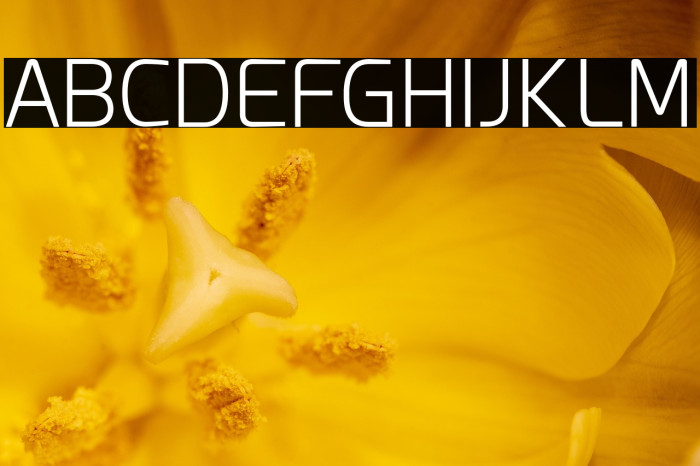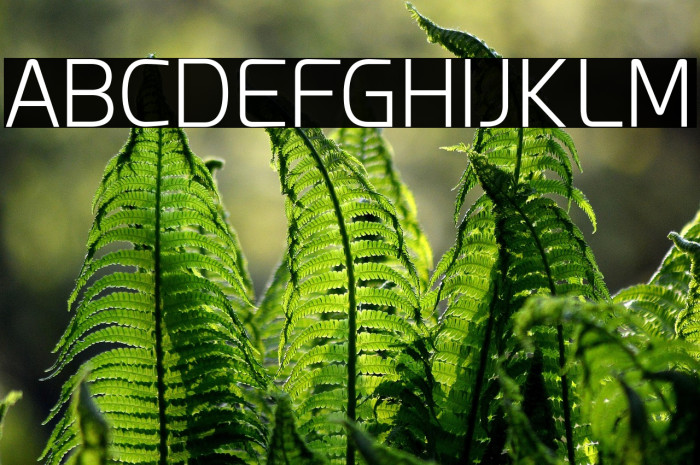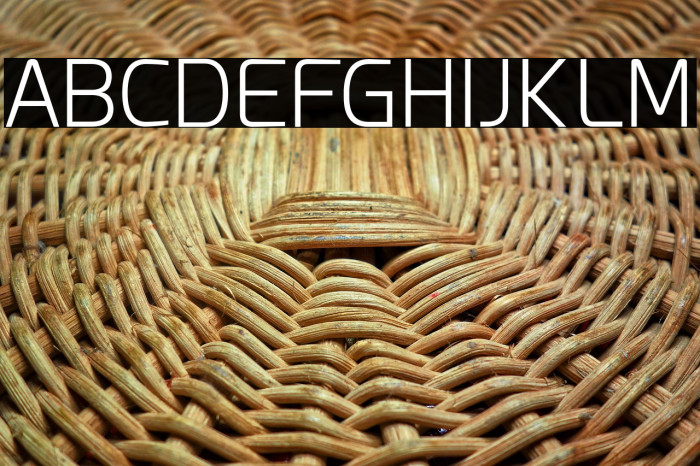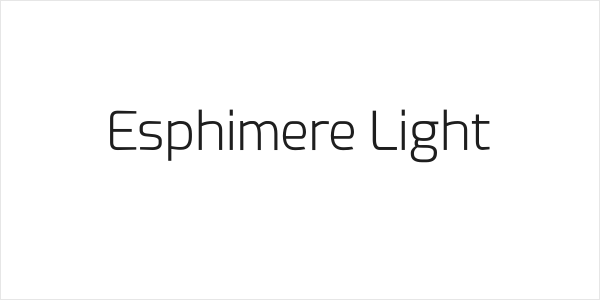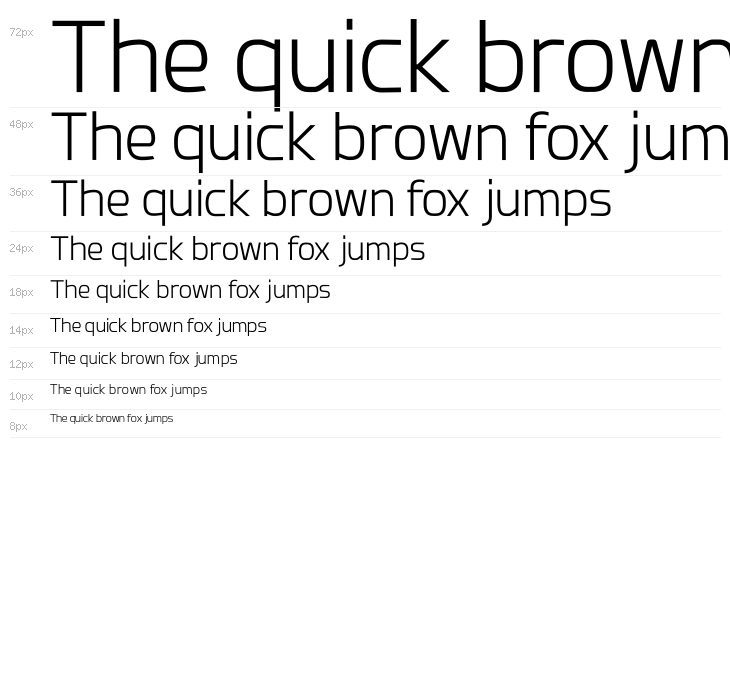
Esphimere Light Font
Esphimere Light Description
This font features a clean and modern sans-serif design with a light weight, making it ideal for contemporary projects. The characters are well-proportioned with a slightly condensed width, offering a sleek and streamlined appearance. The stroke contrast is low, providing a uniform and consistent look across all characters. The spacing between characters is normal, ensuring readability and clarity. This font is versatile and can be used in various design contexts, from digital interfaces to print media.
| Proposed Projects | Ideal for web design, app interfaces, branding, and editorial layouts. |